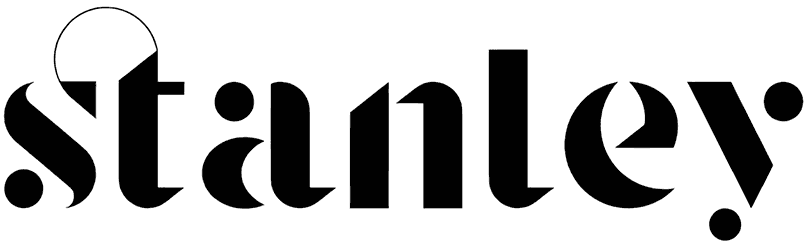
Stanley Font
In some critical projects, you have to demonstrate your creative talent by utilizing a magical techno font such as Stanley in billboards, social media posts, stickers, or web page templates.
Stanley is an elegant display typeface that combines rounded and rectangular forms.
This font is perfect for branding, posters, letterhead, packaging designs and more.